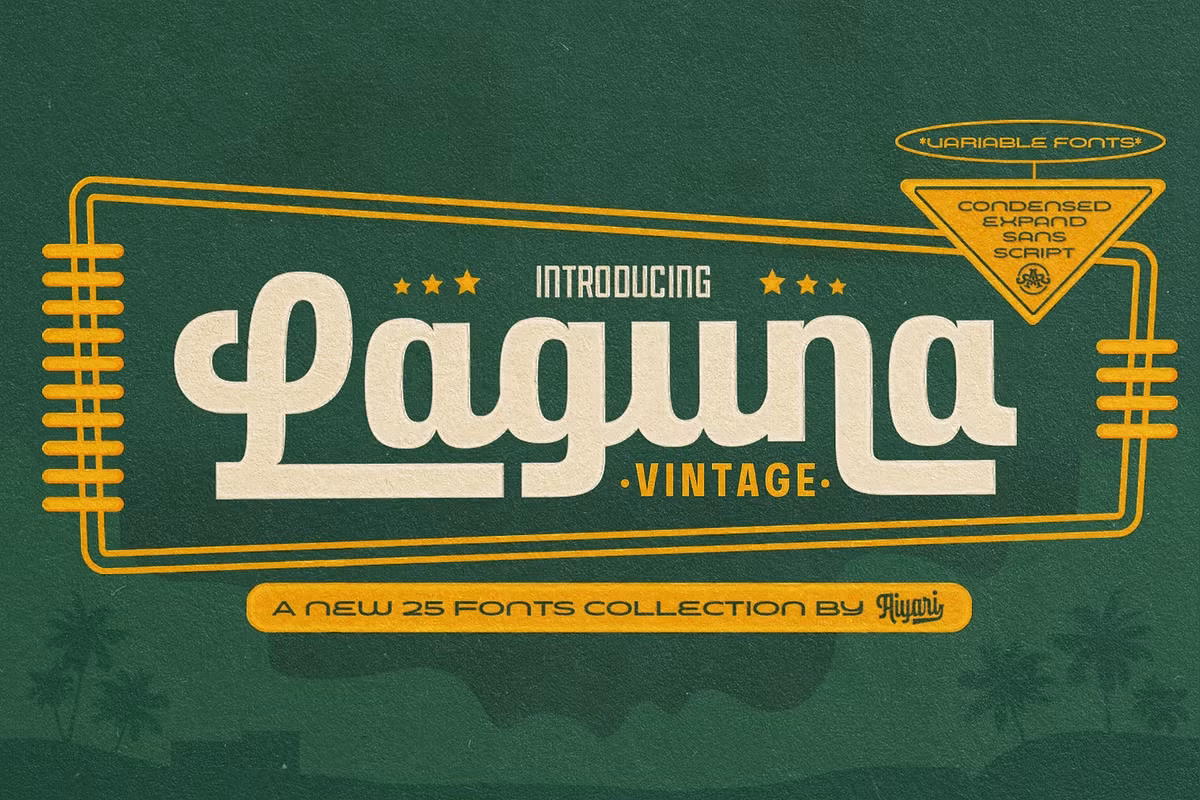
Retro-inspired and full of nostalgic charm, Laguna Vintage Collection Font Free Download is a stunning typeface set designed to bring a timeless vintage aesthetic to your creative projects. Ideal for logos, packaging, t-shirts, posters, and branding with a retro twist, this collection blends bold letterforms with ornamental touches that echo classic design eras.
Whether you're aiming for a 70s vibe, surf-culture style, or old-school Americana, Laguna delivers with personality and versatility. With various styles and extras included, it offers plenty of creative freedom to craft eye-catching, throwback-inspired designs.